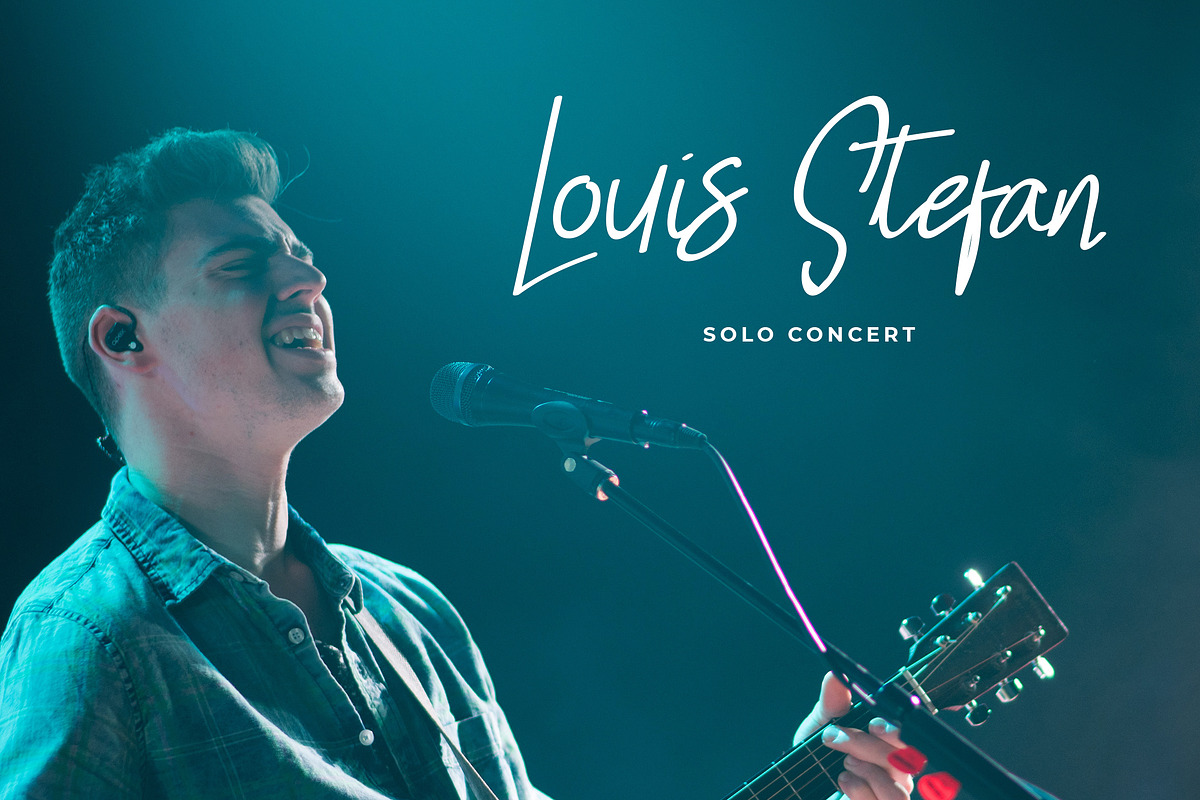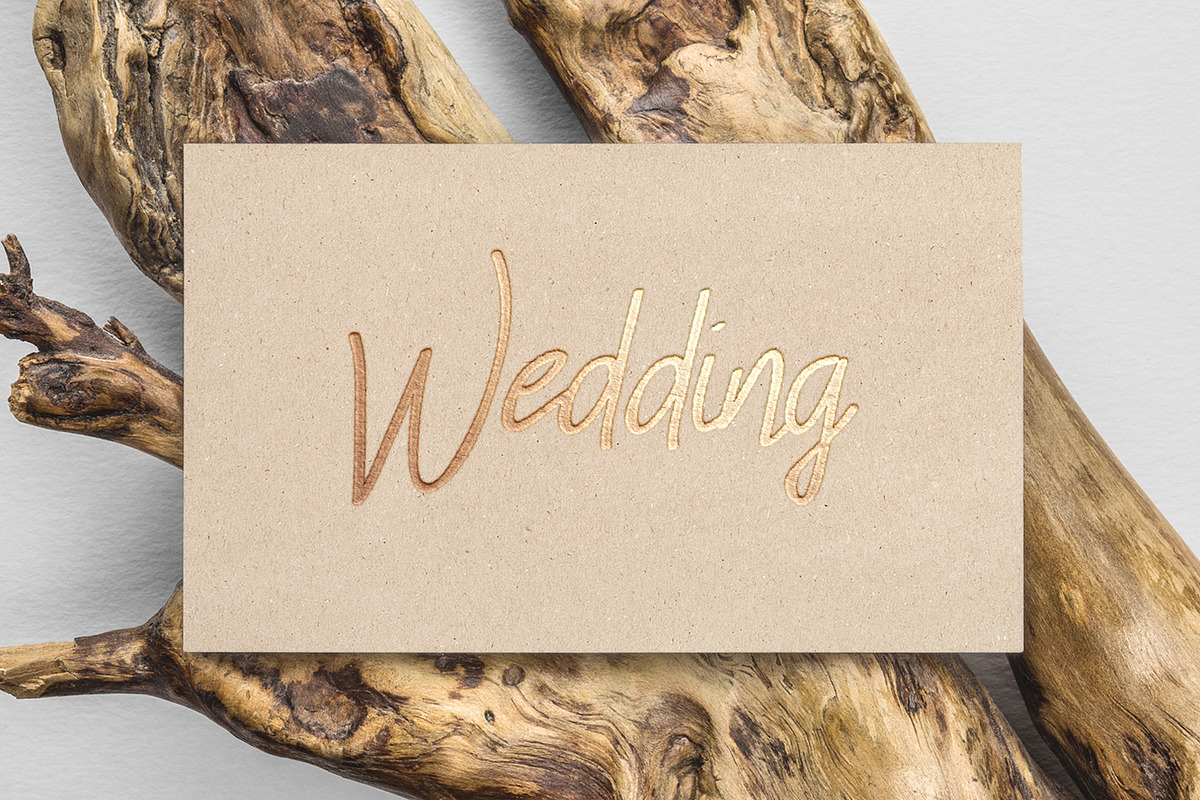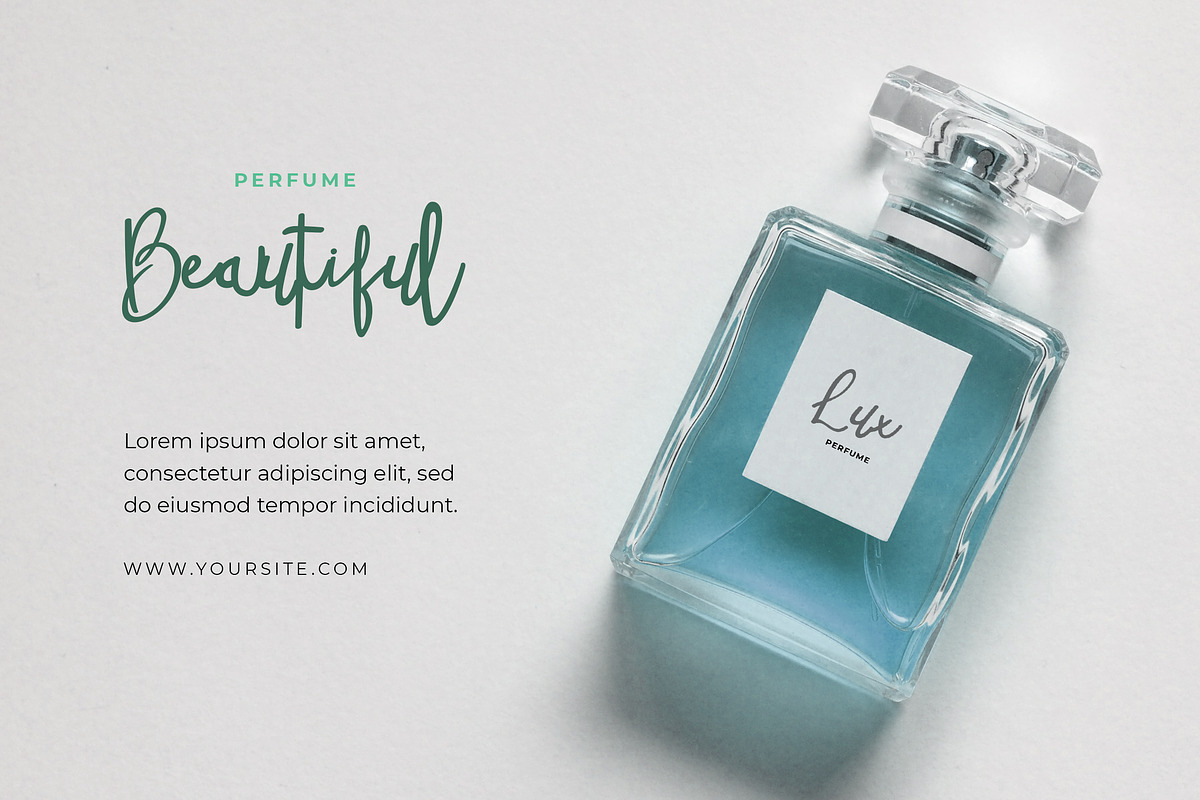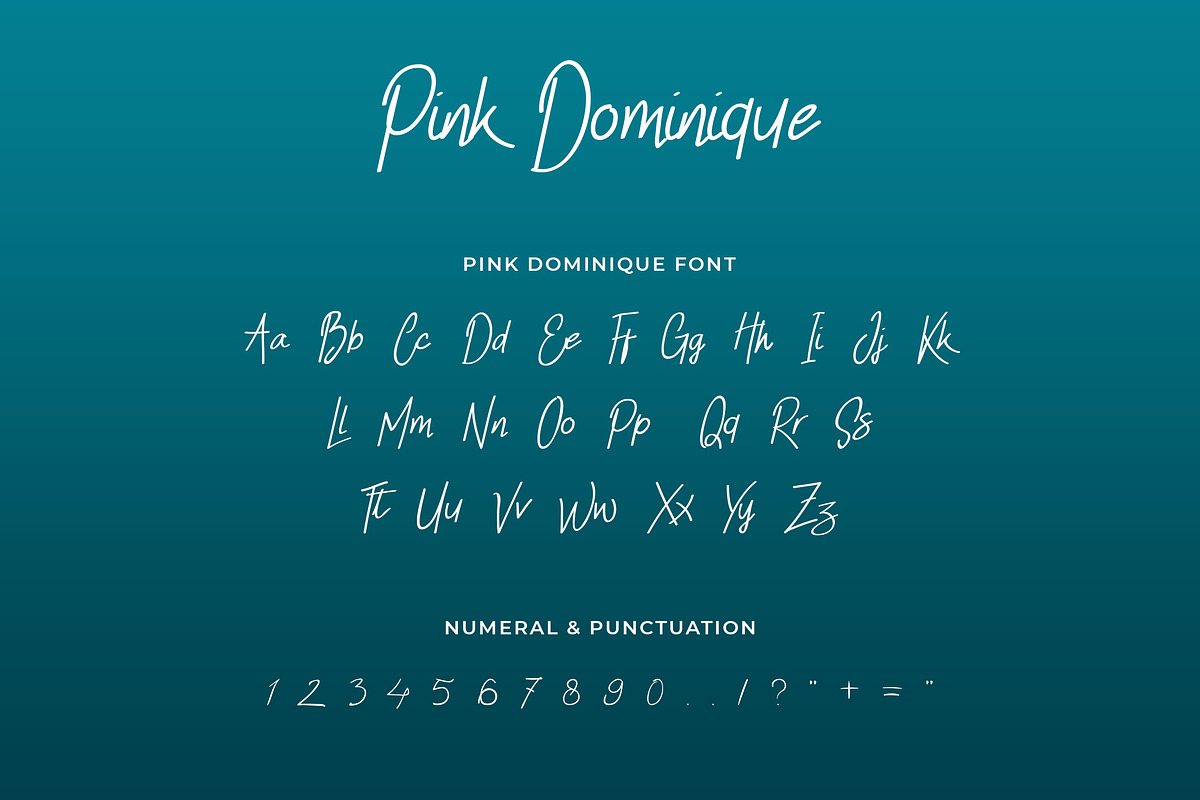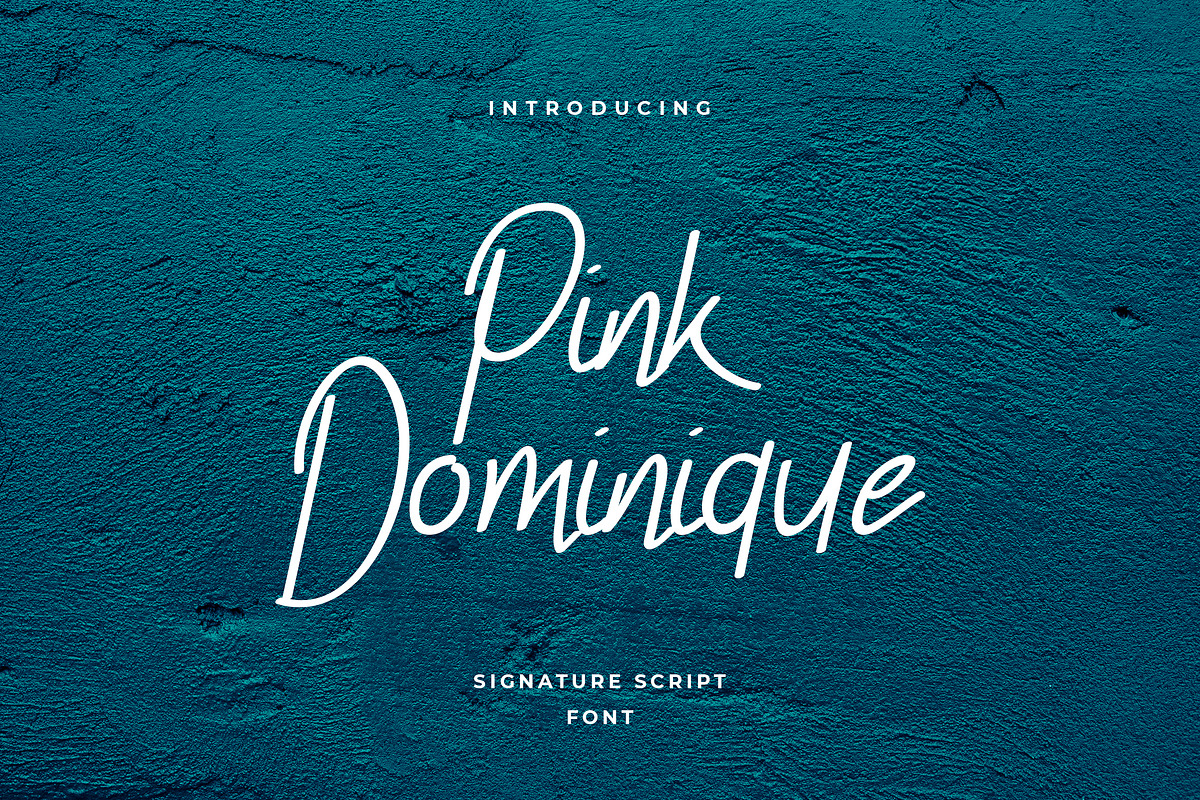
Pink Dominique Signature Font
Pink Dominique is unique Handwritten Signature Font with a personal charm. With quick dry strokes and also has vintage display font. Can make it easier to convey the message in your design. Use for awesome display, labeling, clothing, movie sceen, poster, movie title, gigs, album covers, logos, and much more. It's also could be good for both fun and semi-formal text.